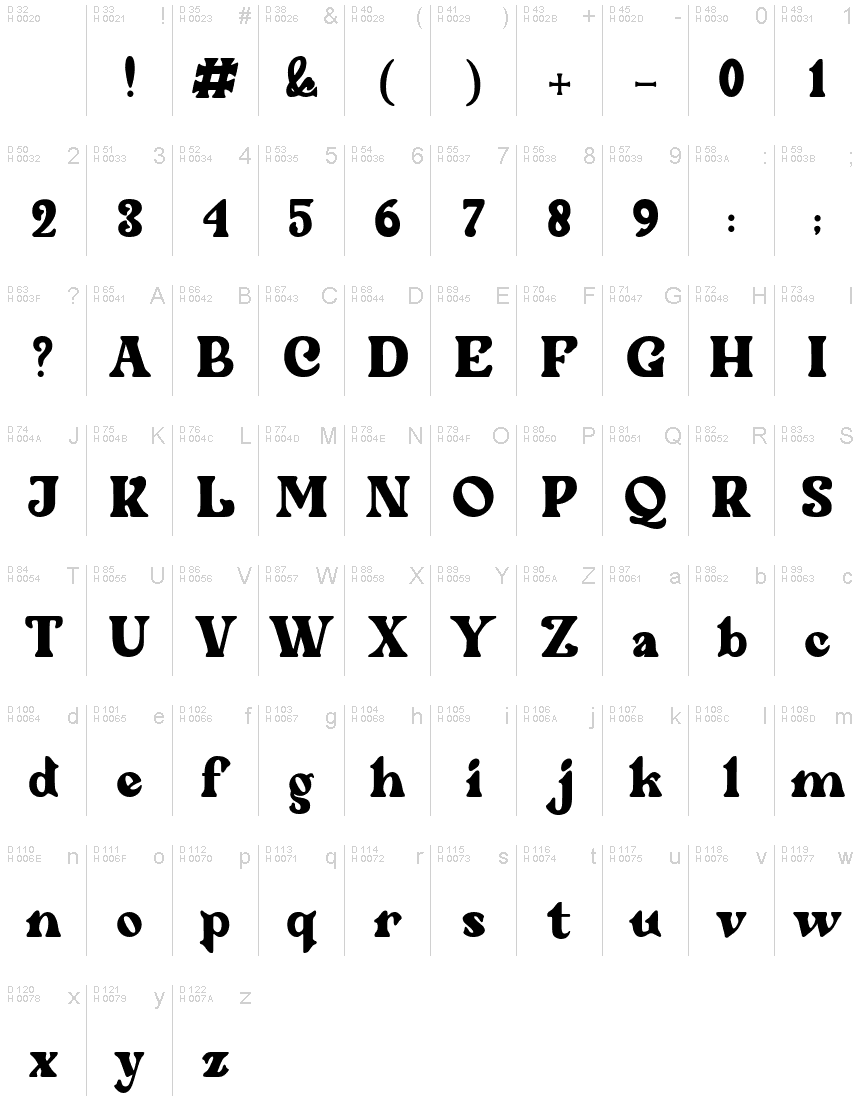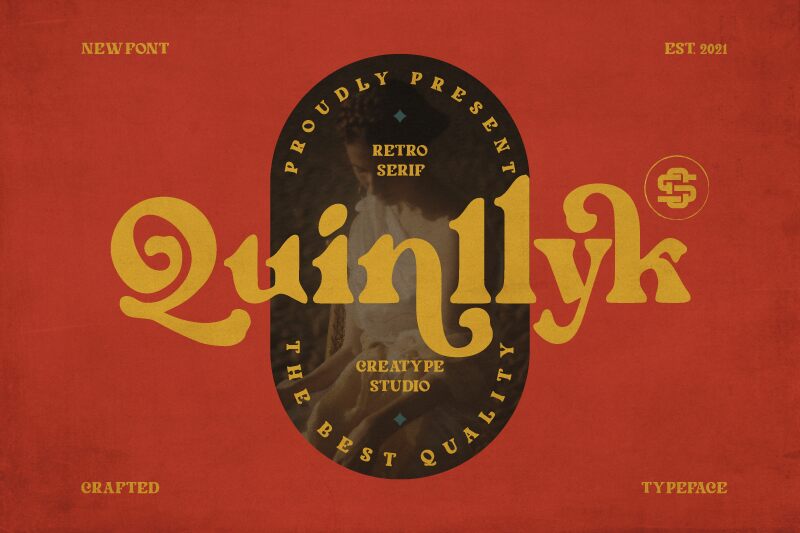
Quinlliyk Regular
Quinlliyk is a bold, wide display font designed by Rian Rahardi with a retro style. It's perfect for projects needing a vintage feel, such as logo designs, poster art, and packaging labels. Let Quinlliyk add a unique touch to your next project!